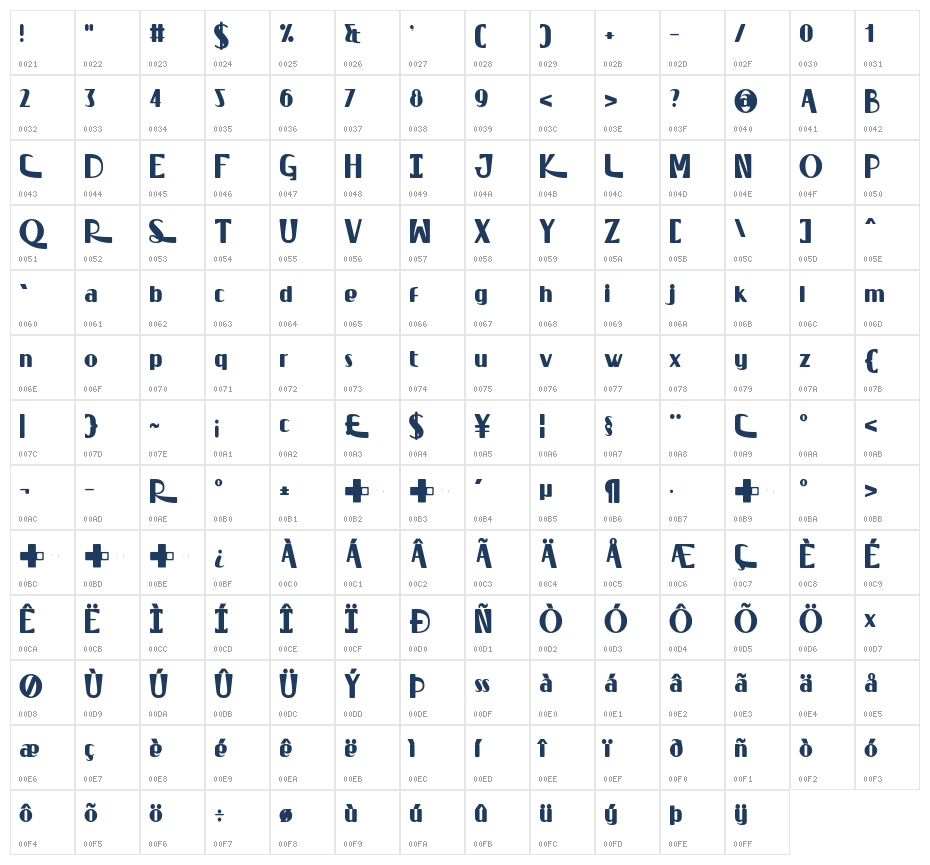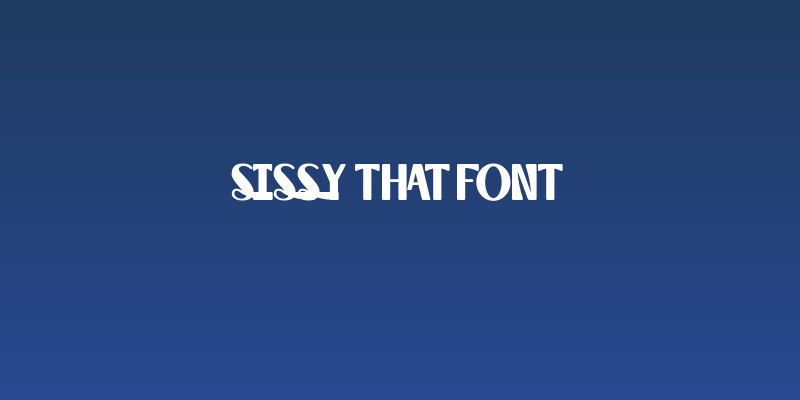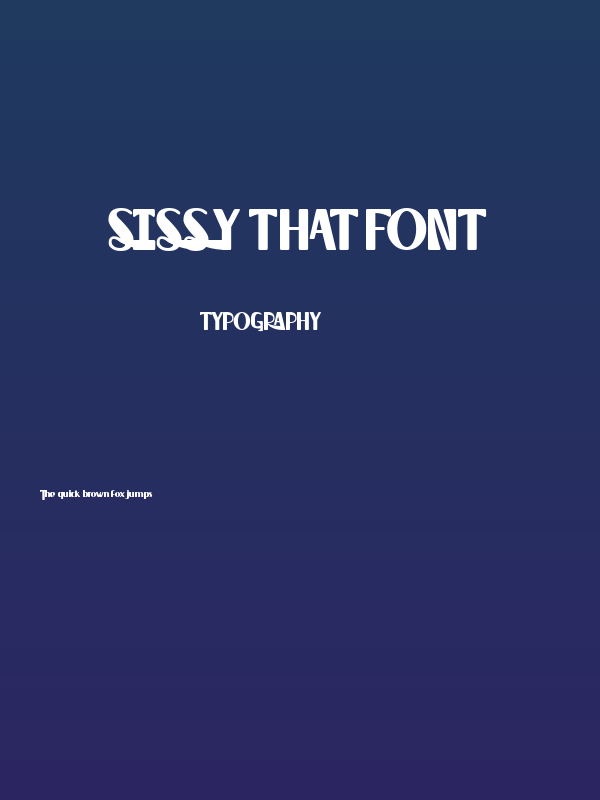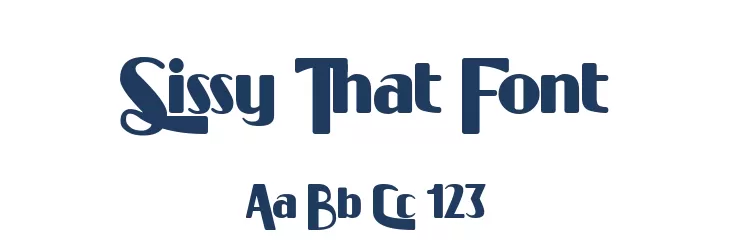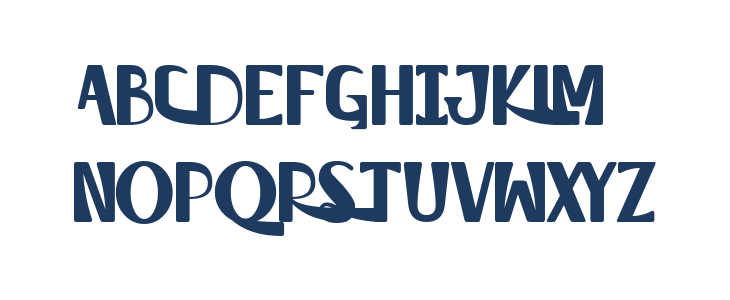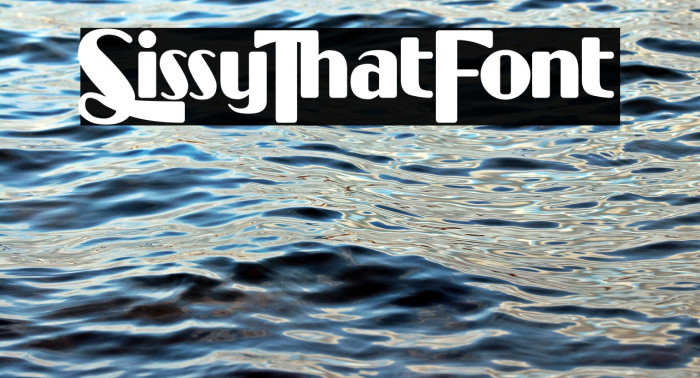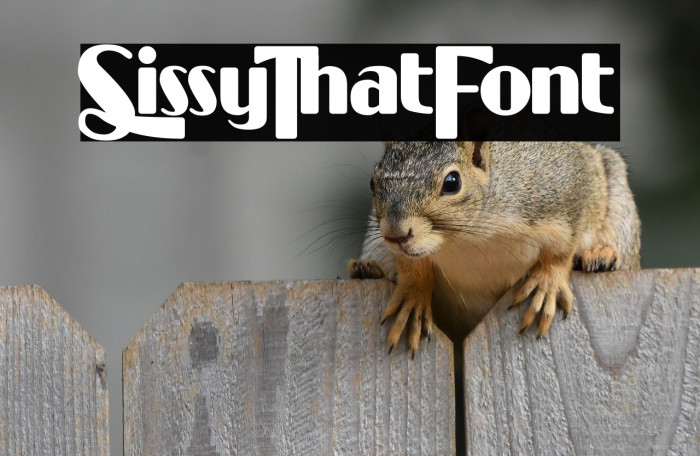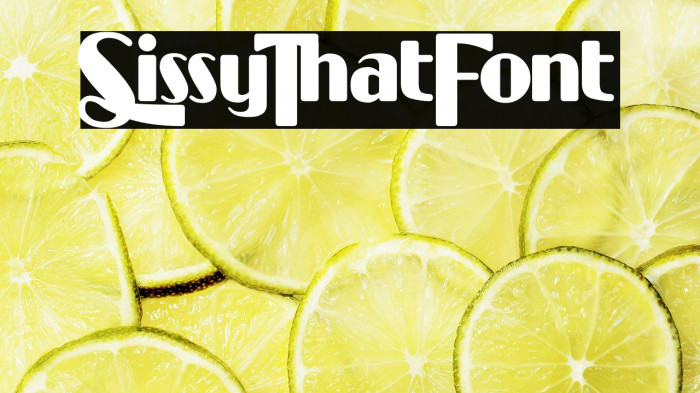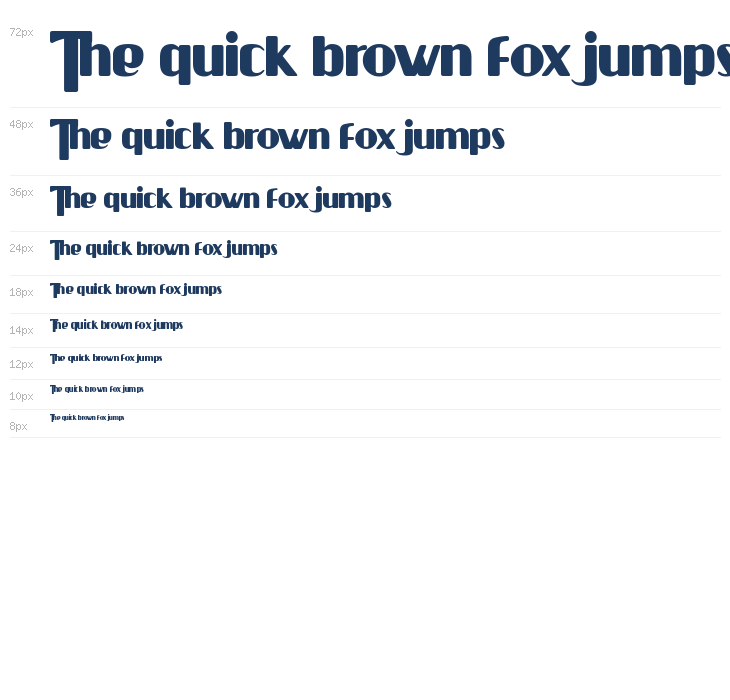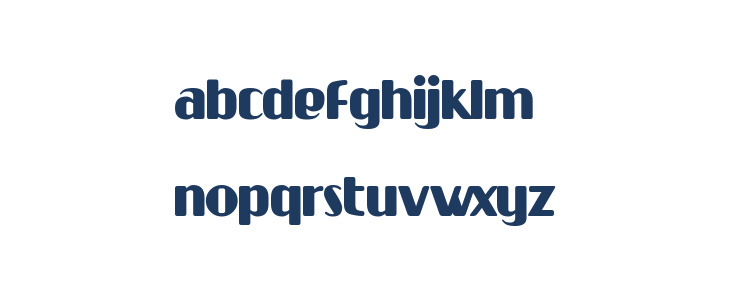
Sissy That Font Font
Sissy That Font Description
Bold, playful, and rounded sans-serif font with a slightly irregular, hand-drawn appearance.
| Overall Style | Playful, Casual, Hand-drawn |
| Use Case | Headlines, Logos, Children's products, Informal branding |